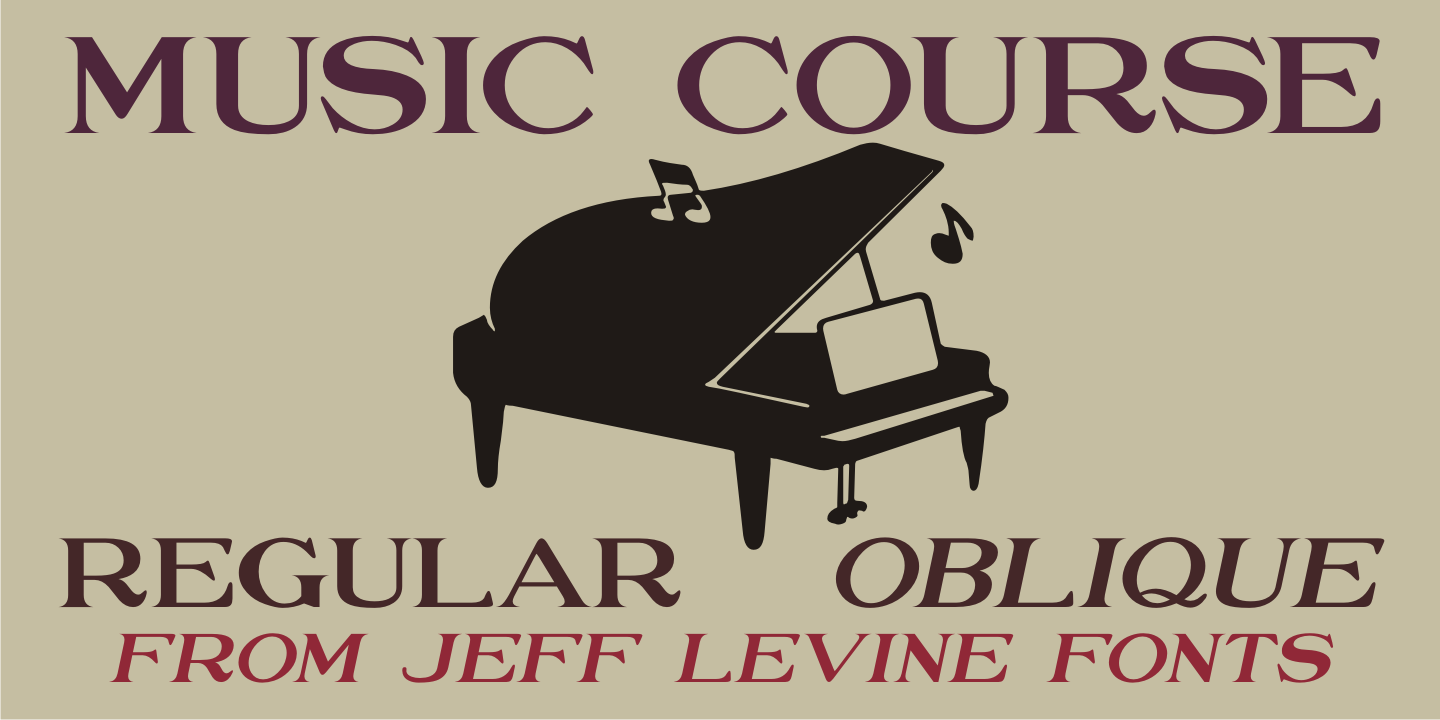
Music Course Font is perfect for musical design projects including music schools, instrument learning centers, music theory courses, conservatory programs, music teacher training, educational music software, music lesson materials, and harmonious educational campaigns. This melodic typeface excels in music academies, private music instructors, online music platforms, music therapy programs, and projects that celebrate musical education and the joy of learning instruments and music theory.
What makes Music Course Font exciting is its educational musical character that perfectly captures the essence of music learning and pedagogical harmony. The font features rhythmic letterforms with musical flow that reflects the structured progression and creative expression found in music education. Its harmonious design elements embody the spirit of musical instruction and artistic development, making it perfect for projects that need to convey learning, creativity, and connection to musical traditions. The carefully crafted educational proportions create an atmosphere of musical discovery and instructional excellence.
Music Course Font comes in multiple family variations including instructional, harmonic, educational, and melodic styles. Each weight maintains the distinctive musical character while offering different levels of educational intensity and musical presence. The font family includes musical alternates, harmonic ligatures, and instructional variations that provide designers with comprehensive options for creating truly educational and musically authentic typographic compositions that celebrate learning excellence.
Whether you're designing music education branding, creating instructional marketing materials, or developing musical promotional graphics, Music Course Font Free Download provides the perfect typographic foundation for projects that celebrate musical education excellence and learning harmony. This remarkable typeface transforms ordinary text into compelling expressions of musical wisdom and educational passion. Download this harmonious font today and tune your design projects with the musical education elegance and instructional authenticity that captures the essential spirit of music learning and pedagogical excellence.